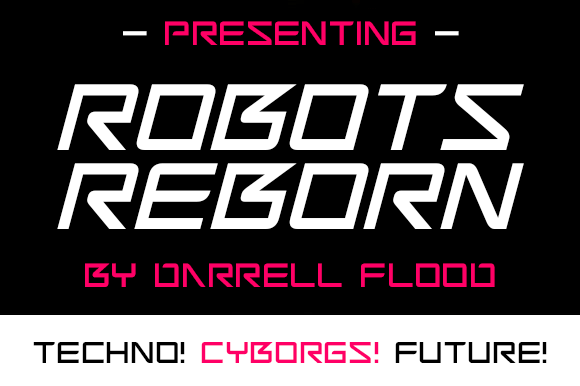
Prepare yourself for a typographic journey through the cosmos with Robots Reborn Font, a display font family that embodies the essence of futuristic technology. This remarkable creation by Dadiomouse is a visual masterpiece that combines sharp angles and flowing curves, capturing the essence of both the robotic and the organic.
Enter a realm where machines come alive, and neon lights illuminate the night sky. Robots Reborn Font is the perfect companion for tech companies seeking a font that exudes innovation and modernity. Its bold, geometric letterforms convey a sense of strength and stability, while its subtle curves hint at the adaptability and versatility of technology.
Immerse yourself in the world of digital dreamscapes and cosmic adventures. Robots Reborn Font is the ultimate choice for creating eye-catching headlines, sleek logos, and captivating branding materials. Its unique character set, including glyphs, alternates, and ligatures, provides endless possibilities for customization, allowing you to craft designs that truly stand out.
With Robots Reborn Font, you'll have the power to transport your audience to a realm of boundless imagination. Whether you're designing websites, apps, posters, or social media graphics, this font will elevate your designs to new heights, leaving a lasting impression on all who encounter it.